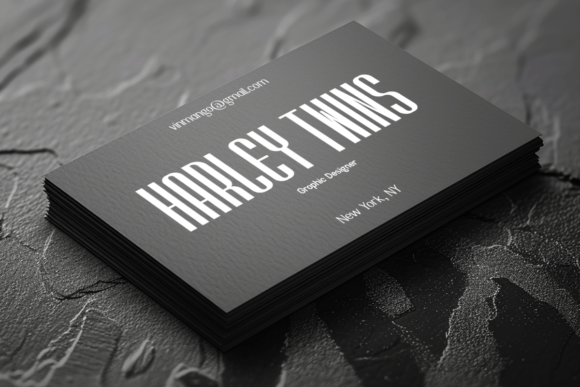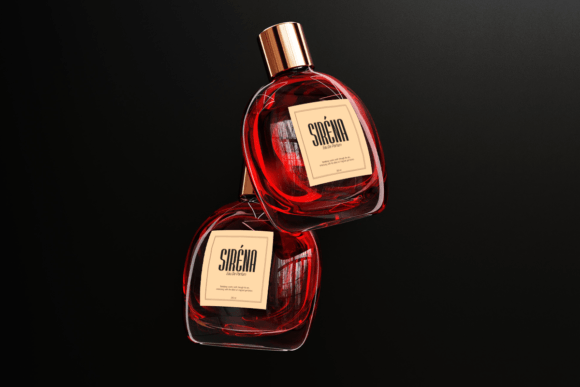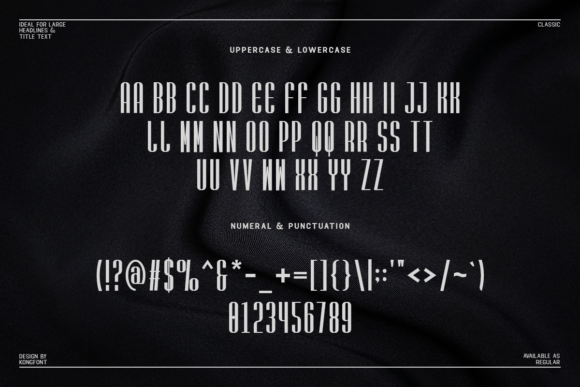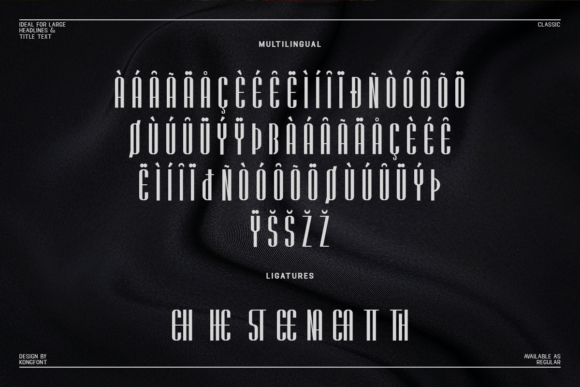
Introduction to Sereena Font Font
Fonts play a crucial role in design, and the Sereena Font font is a typeface that brings both character and versatility to any project. Whether you’re working on a branding project, a website, or a print design, the Sereena Font font offers a unique style that can elevate your work.
| 📌 Font Name | Sereena Font |
| 👤 Author | fontkong |
Sereena Sans Serif Font is a refined and versatile typeface that exudes modern elegance and simplicity.
With its clean lines and balanced letterforms, Sereena is perfect for a wide array of design projects, from branding and logos to editorial content and digital interfaces This font offers a contemporary yet timeless look, making it an excellent choice for designers who value clarity and sophistication.
Key Features of Sereena Font Font
Why Choose Sereena Font Font?
The Sereena Font font is more than just a typeface – it’s a design tool that helps you communicate your message with style and clarity. Its unique character set and versatile design make it suitable for a wide range of applications, from elegant invitations to bold headlines.
With its carefully crafted letterforms and balanced proportions, the Sereena Font font ensures readability and visual appeal across all mediums.
What makes Sereena Font font special?
The Sereena Font font stands out with its unique design, exceptional readability, and versatility across various design applications.